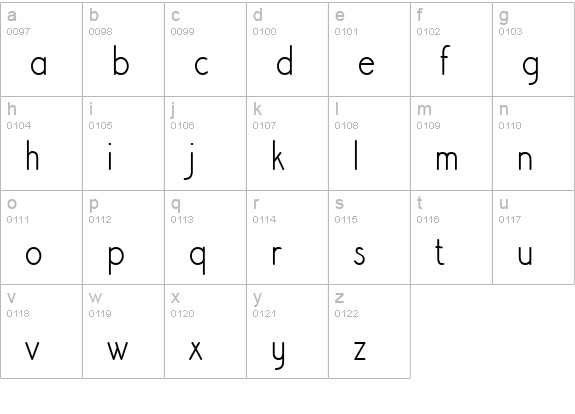
Register Sans BTN Cn is a modern and versatile font that combines elegance with clarity. Its clean lines and balanced proportions make it suitable for a wide range of design projects, from branding and advertising to editorial and web design. This sans serif typeface features a condensed style, allowing for more efficient use of space without sacrificing readability. One of the standout features of Register Sans BTN Cn is its extensive character set, which includes support for multiple languages and special characters. This makes it an ideal choice for designers who need a font that can handle diverse content and maintain consistency across different platforms. But perhaps the most enticing aspect of Register Sans BTN Cn is that it is free to download. Yes, you read that right – this high-quality font is available for free at FontsMarket.com. Whether you are a professional designer looking to expand your font collection or a hobbyist wanting to add a touch of sophistication to your personal projects, Register Sans BTN Cn offers an excellent opportunity to enhance your typography without breaking the bank. So, why wait? Head over to FontsMarket.com and download Register Sans BTN Cn today. With its timeless appeal, extensive character set, and the fact that it won't cost you a penny, this font is sure to become a valuable asset in your design toolbox. Don't miss out on this fantastic opportunity to elevate your creative projects with Register Sans BTN Cn.